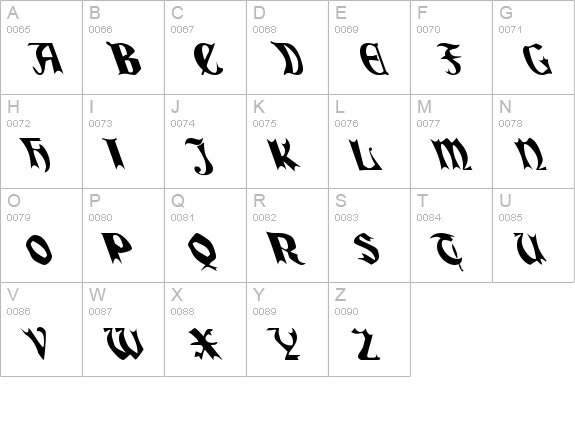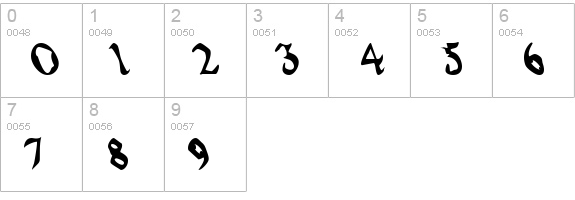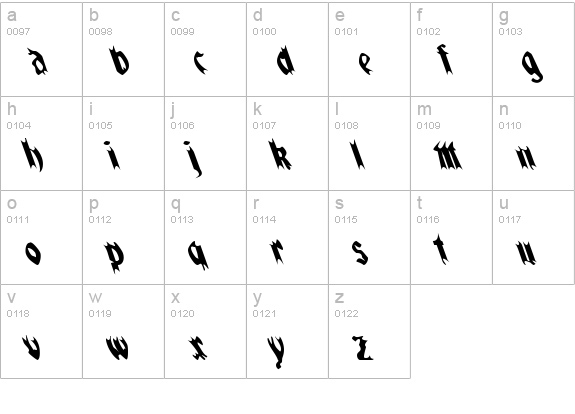
QuaelGothicLefty Font Details
QuaelGothicLefty font is a stunning typographic creation that adds a touch of elegance and sophistication to any design project. With its beautifully intricate letterforms and unique left-leaning style, this font is perfect for those seeking a bold and unconventional look. But what makes QuaelGothicLefty font even more appealing is the fact that it is absolutely free! Yes, you heard it right. This exceptional font can be freely downloaded from FontsMarket.com, allowing designers, artists, and enthusiasts alike to access its amazing features without spending a dime. Whether you're working on a logo design, branding materials, or even personal projects, QuaelGothicLefty font's versatility and artistic flair will surely make your work stand out from the crowd. Its carefully crafted details and legible yet intriguing characters will captivate viewers and convey your message with utmost elegance. The generous availability of QuaelGothicLefty font at FontsMarket.com ensures that everyone can experience and enjoy its exceptional qualities without any financial constraints. It is a font that not only embodies creativity and innovation but also promotes inclusivity and accessibility within the design community. So, why wait? Take advantage of this extraordinary opportunity and download QuaelGothicLefty font today from FontsMarket.com. Unleash your creativity, make a statement, and elevate your designs with this remarkable and freely accessible typographic gem.